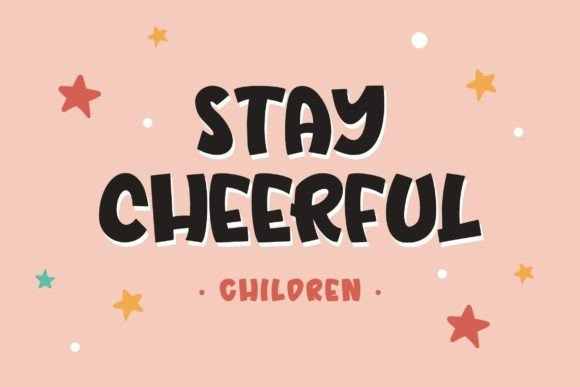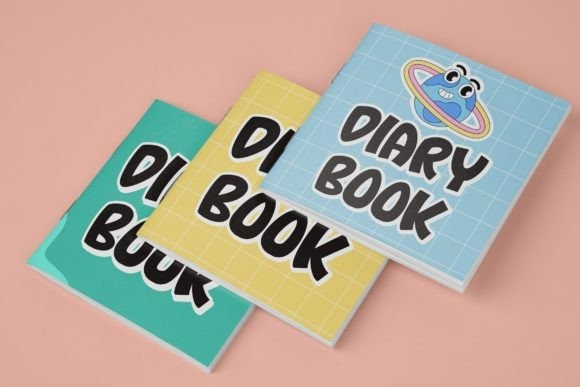
Cheering Mood Font
Cheering Mood is a cute, distinctive, and playful display font perfect for branding projects, logos, wedding designs, media posts, advertisements, product packaging, product designs, labels, photography, watermarks, invitations, stationery, and other projects which need a beautiful touch.